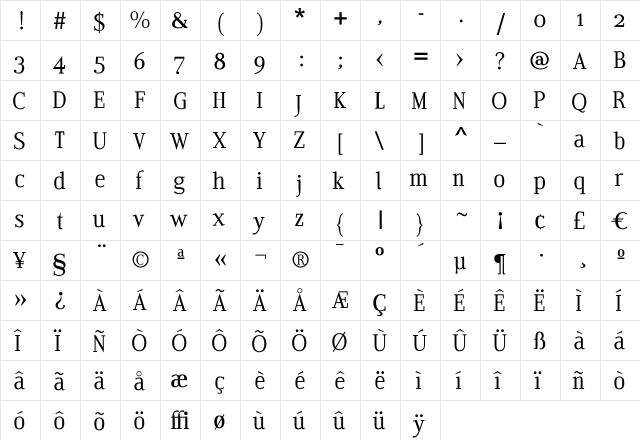
Edito A Regular
Design Context for Edito A Typeface
Edito A offers clean, dependable letterforms without strong stylistic allegiance, making it a practical choice for designers who need flexibility.
Pro Tip: Use Edito A in both headline and body roles to test its range before committing to a single application.